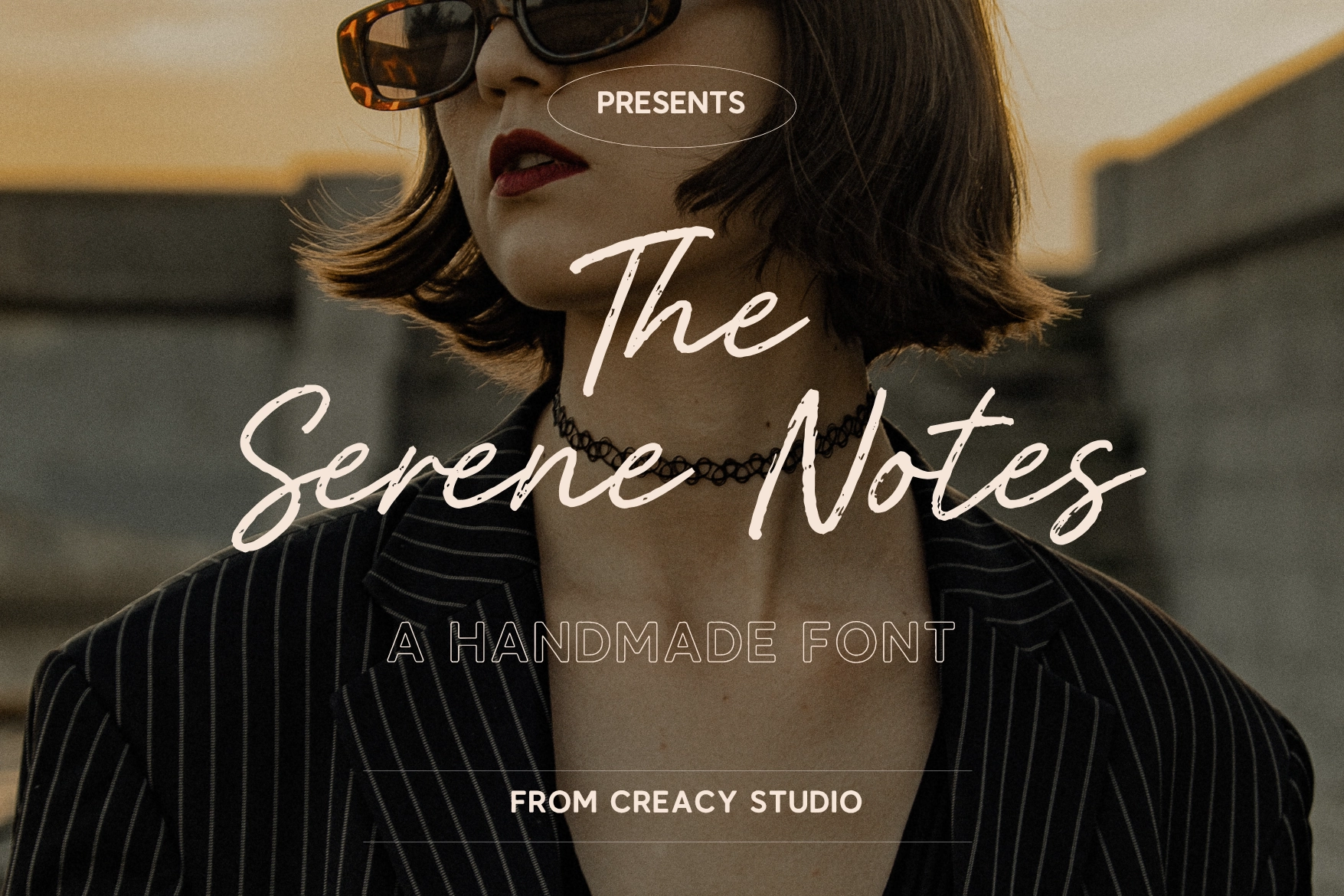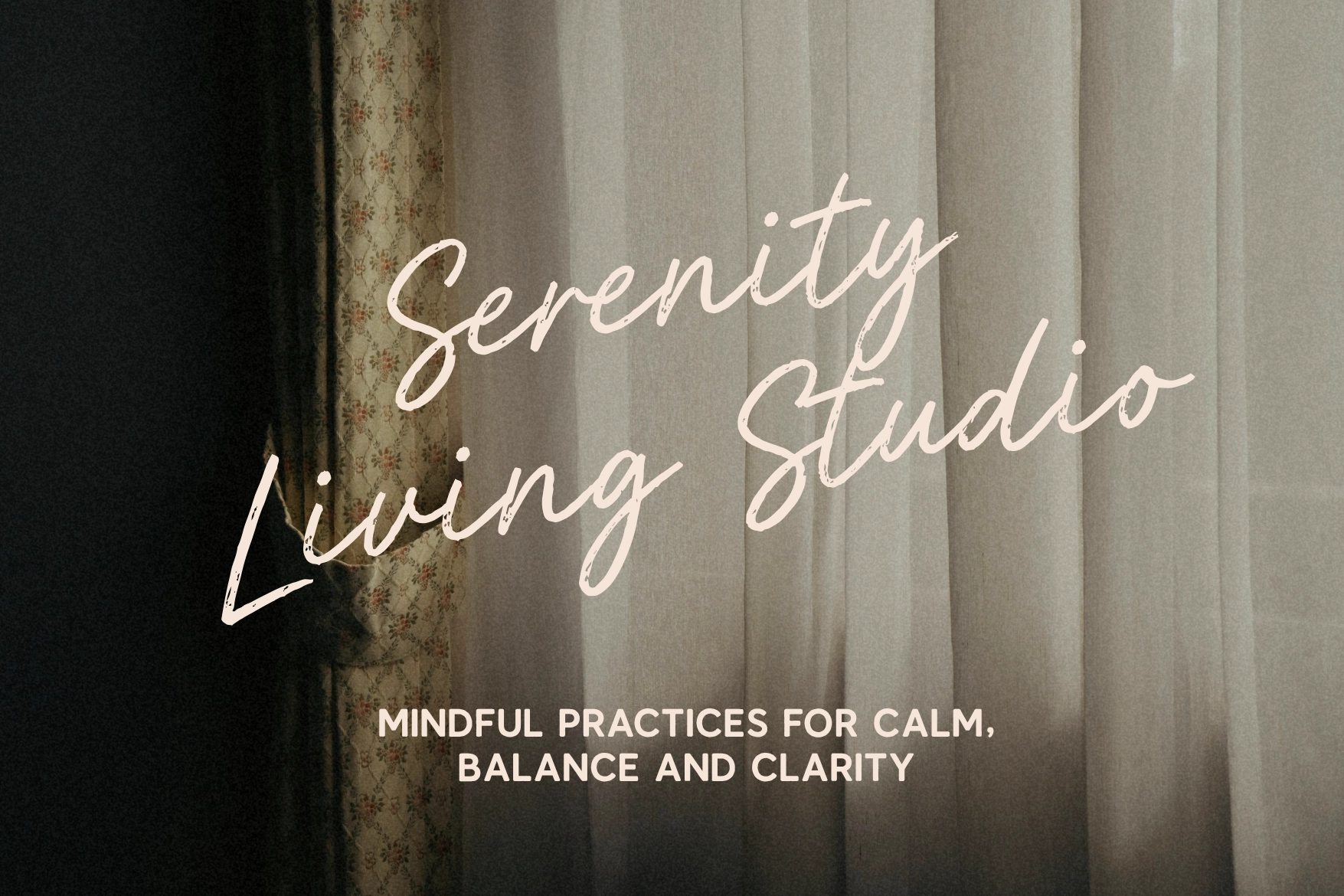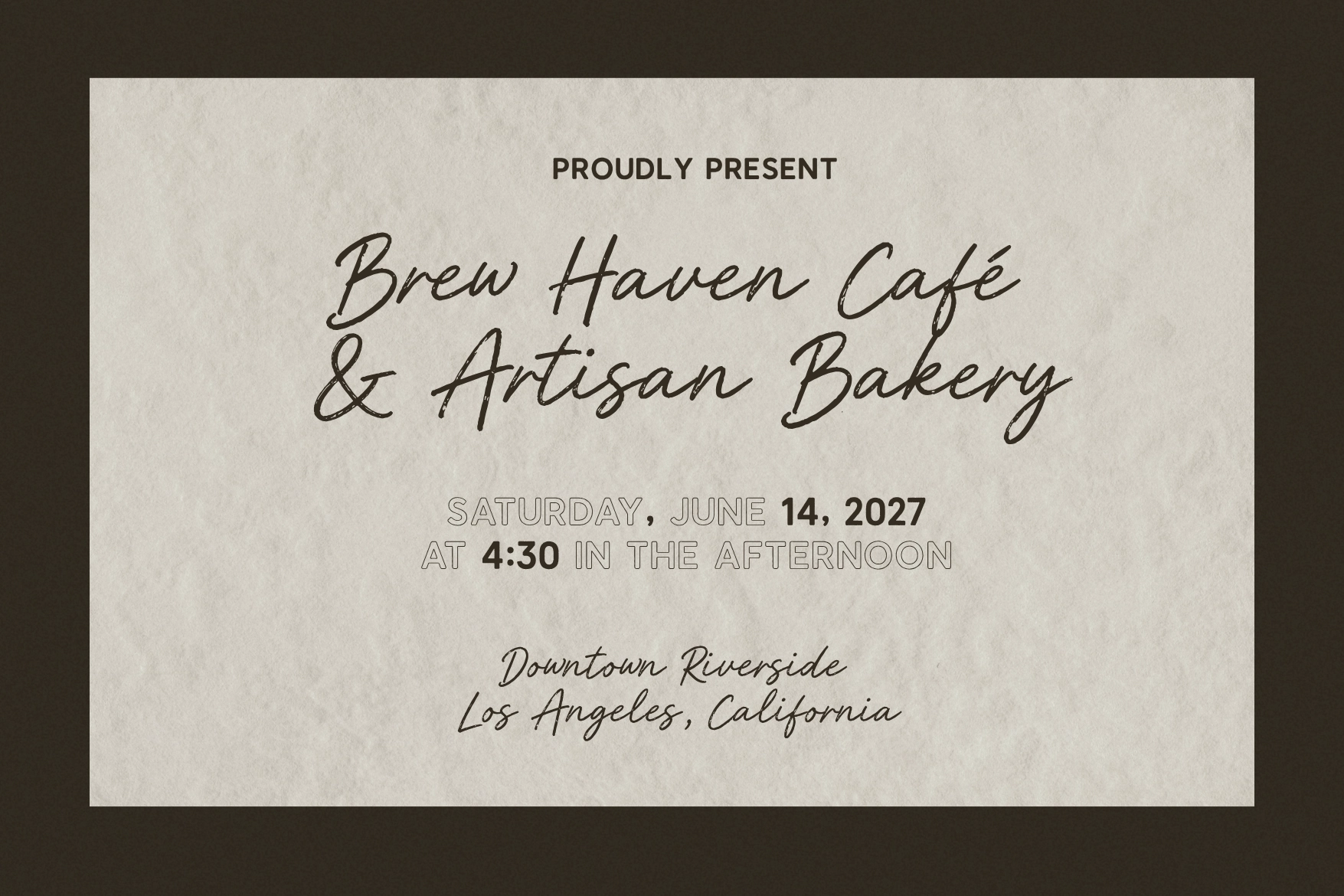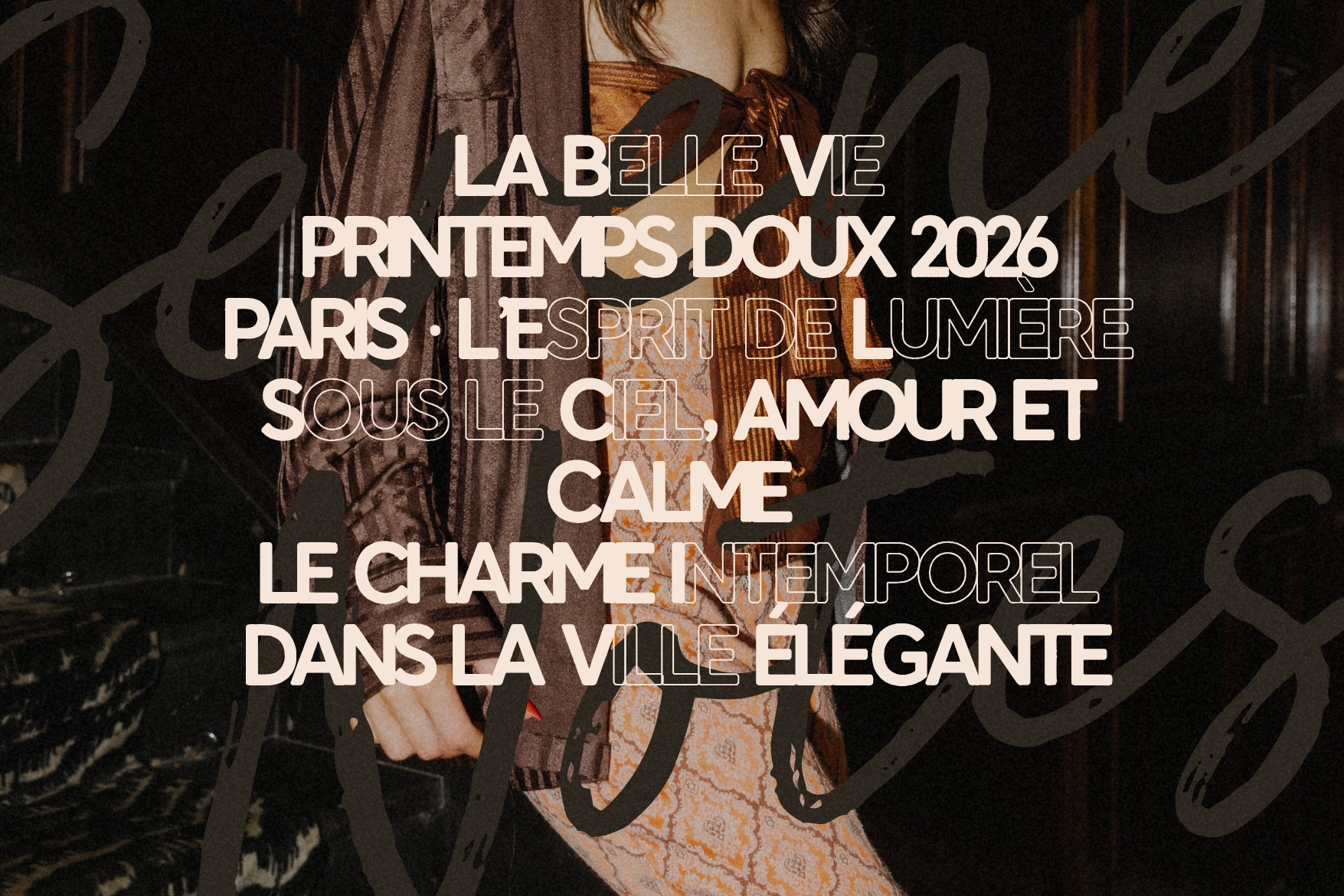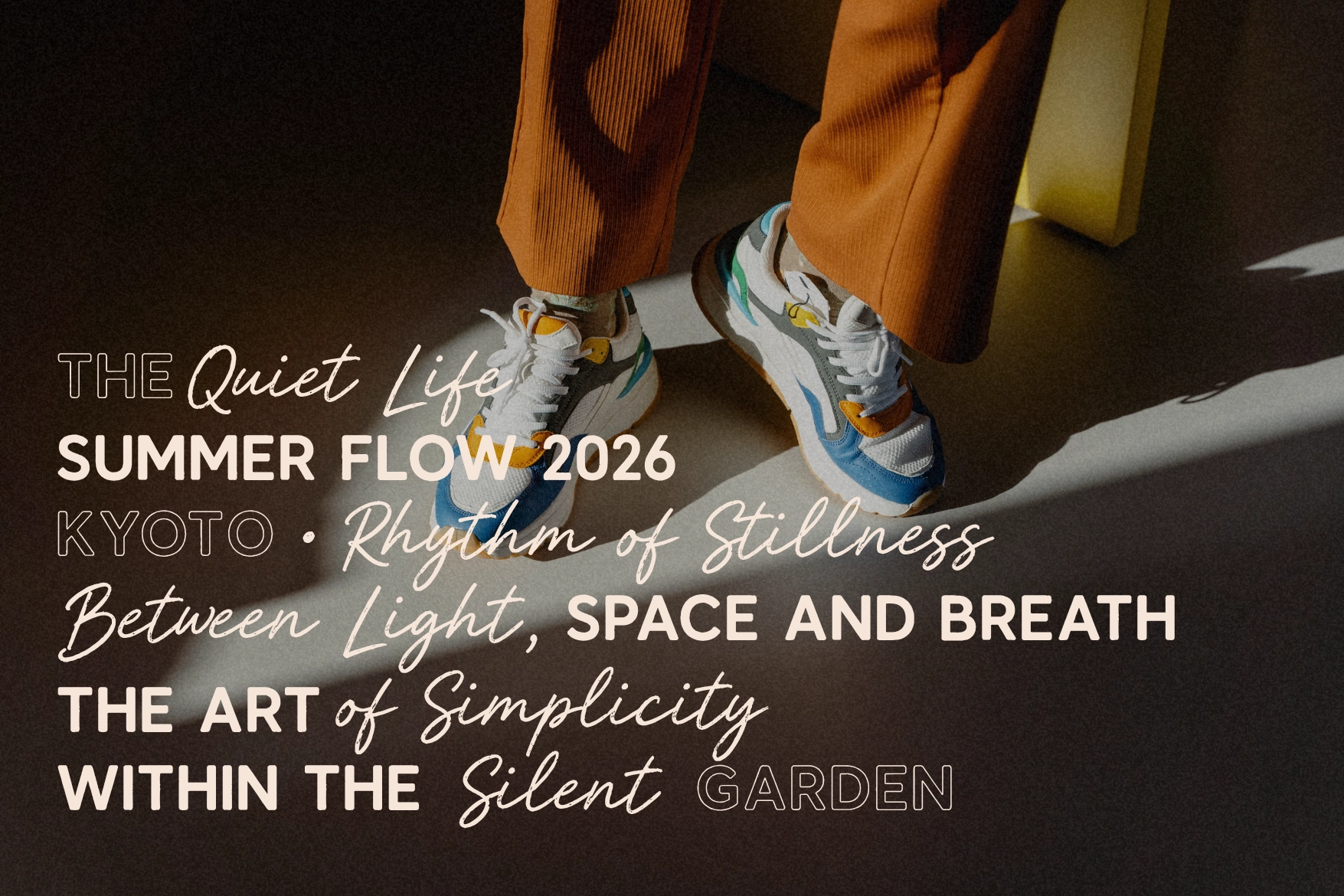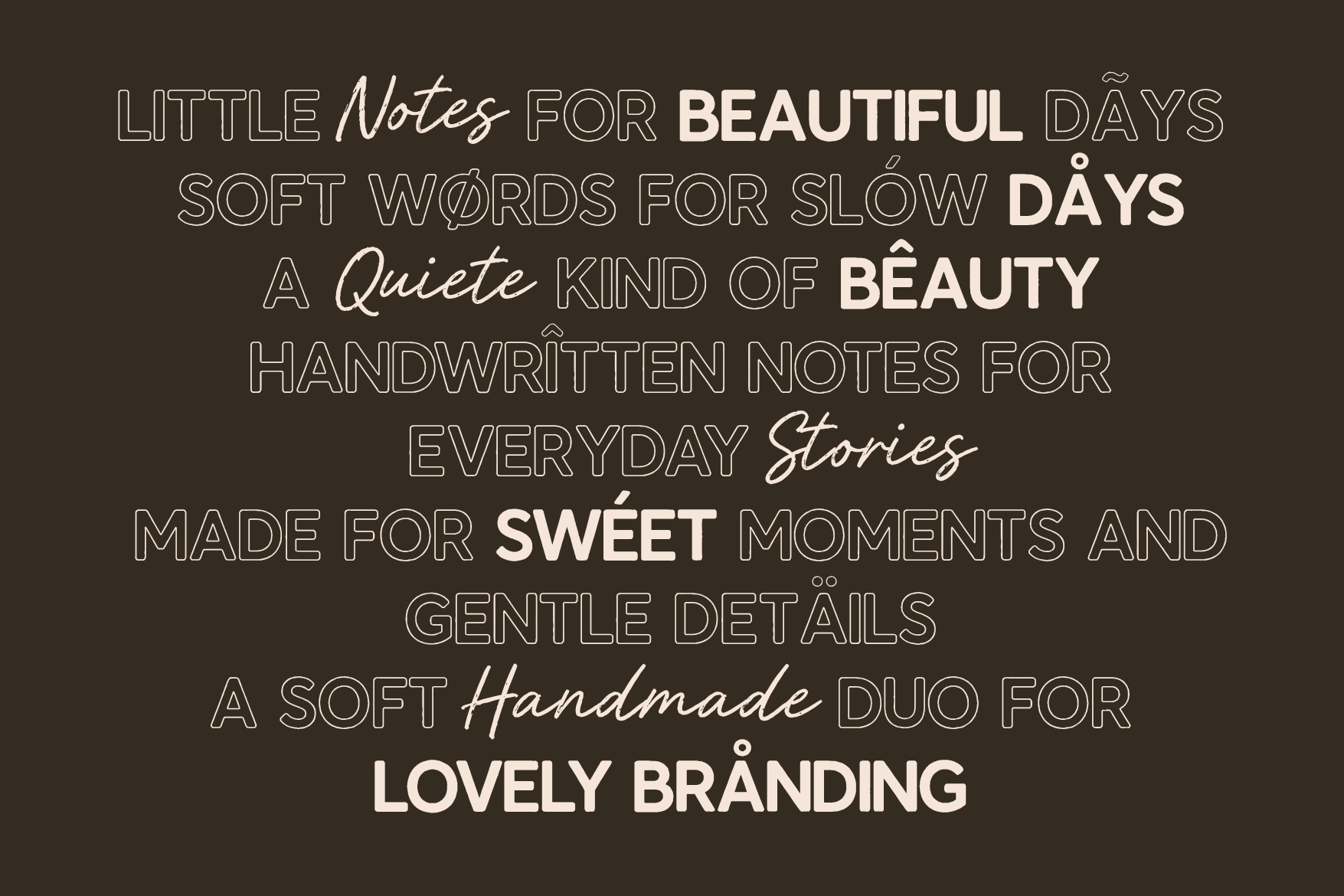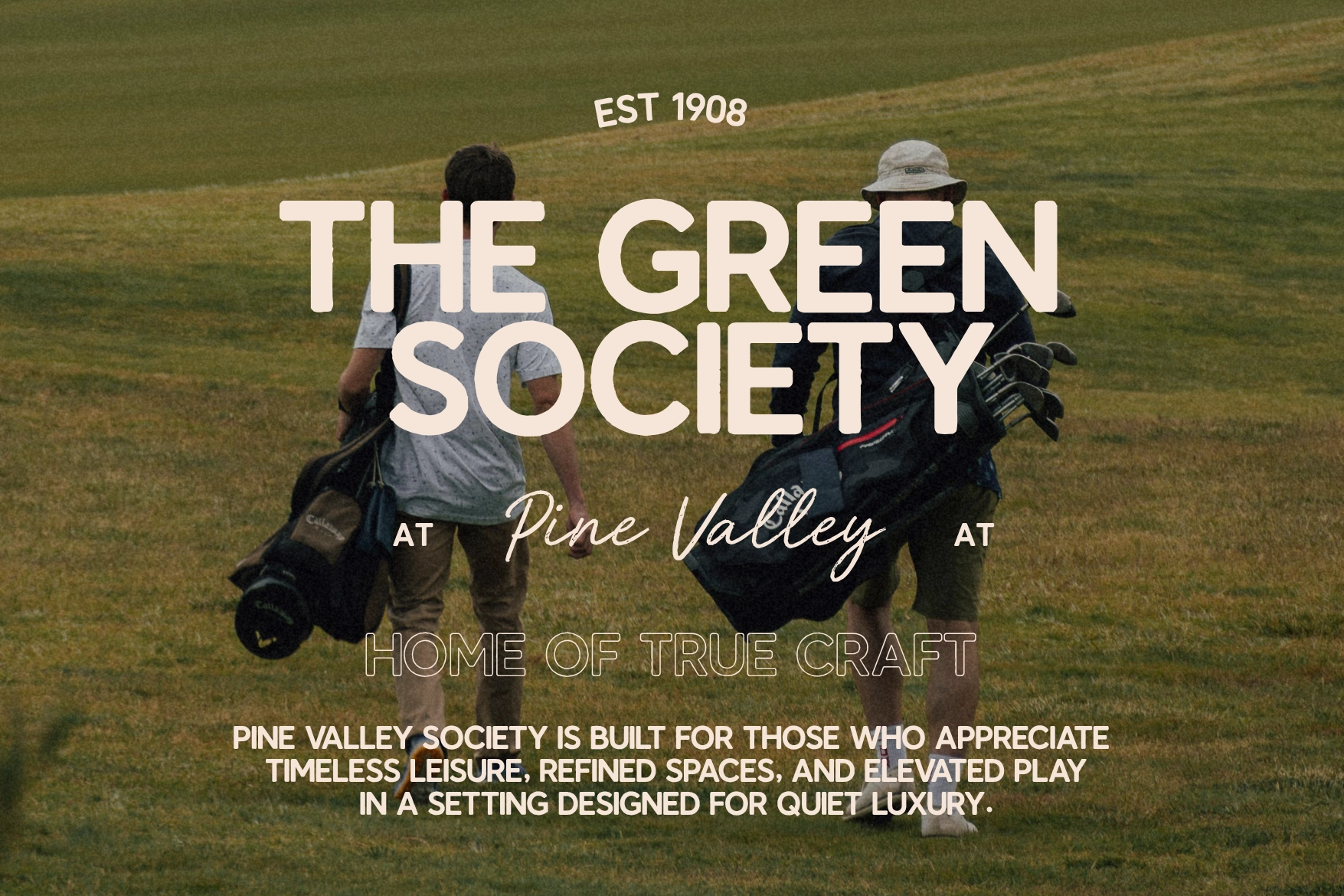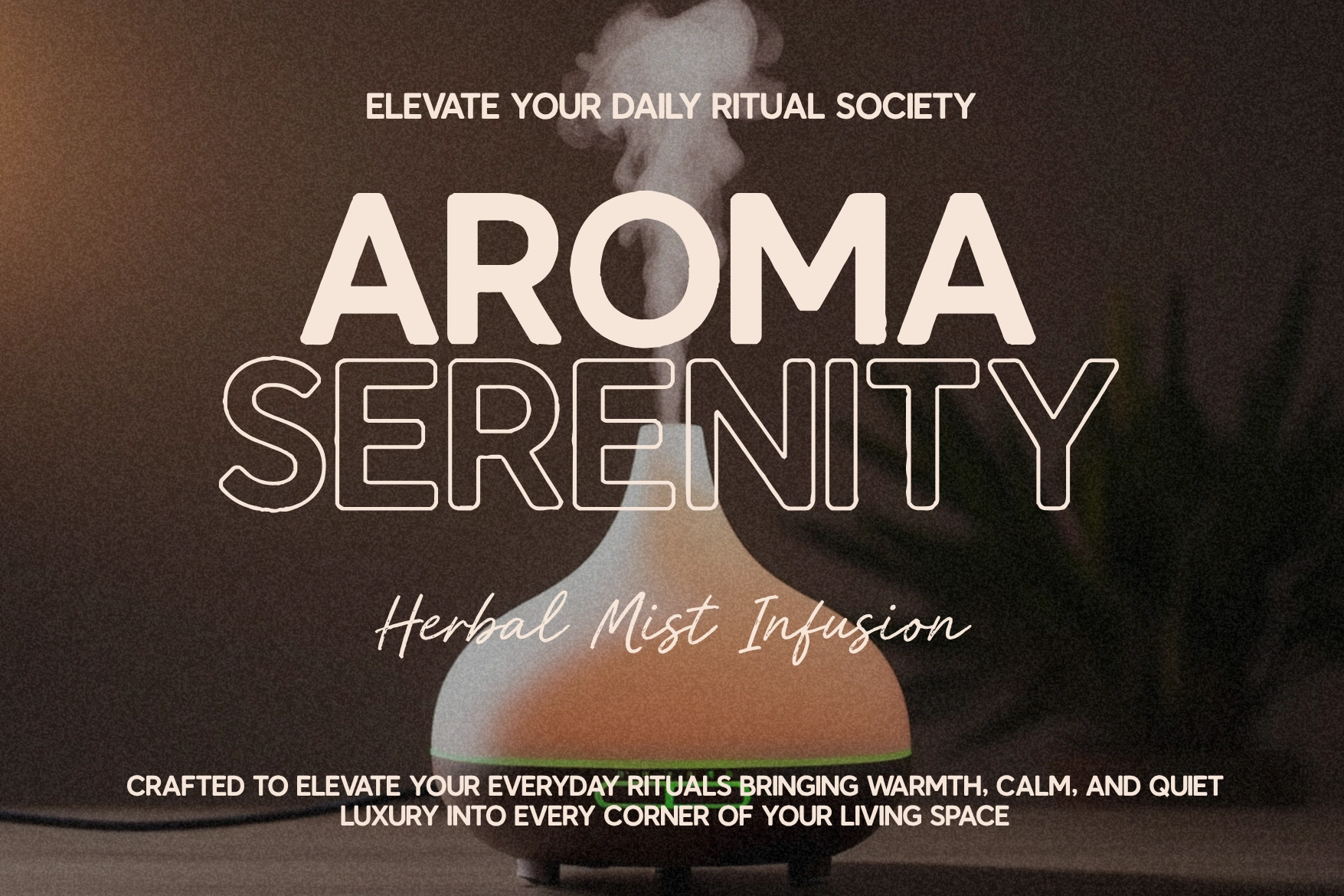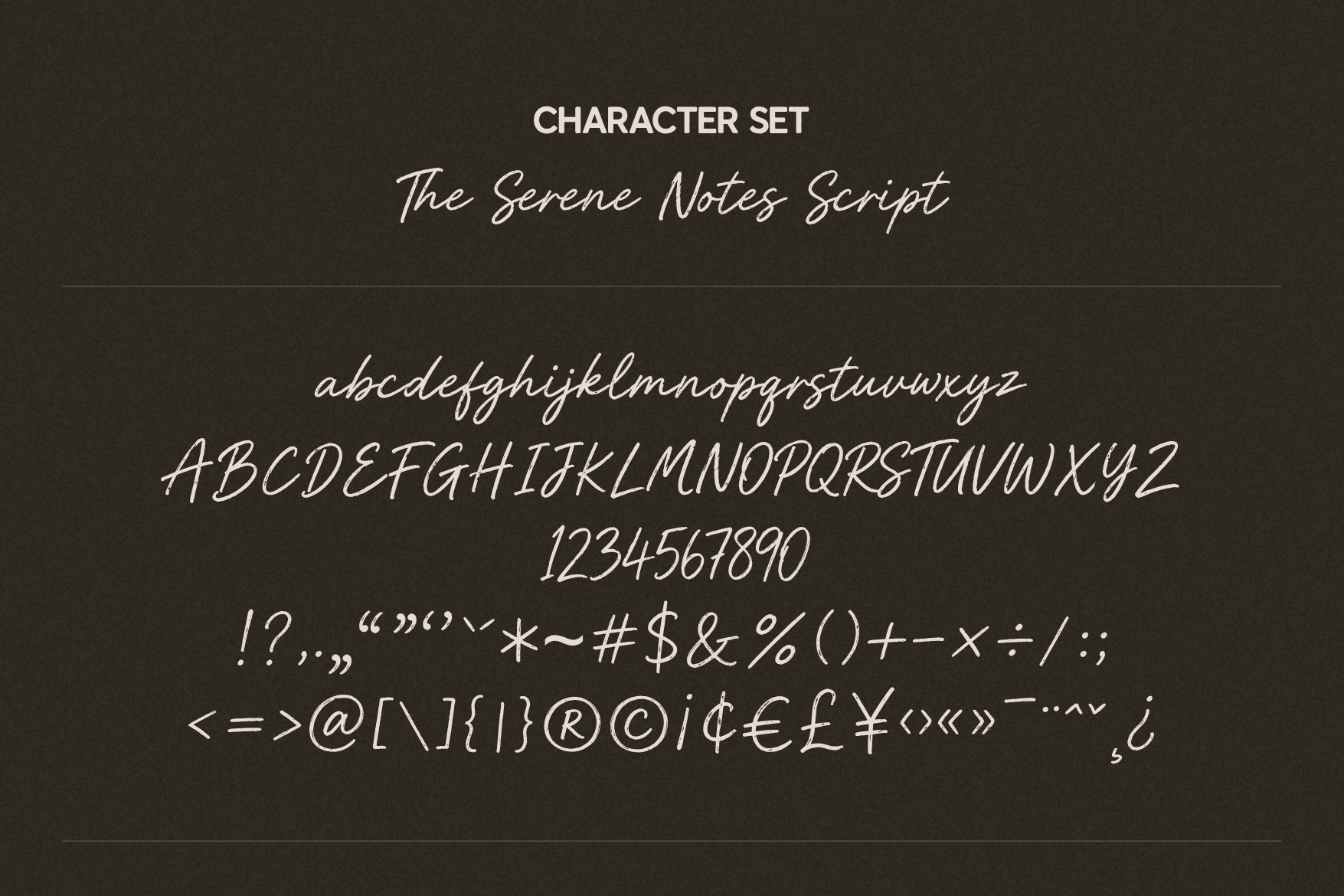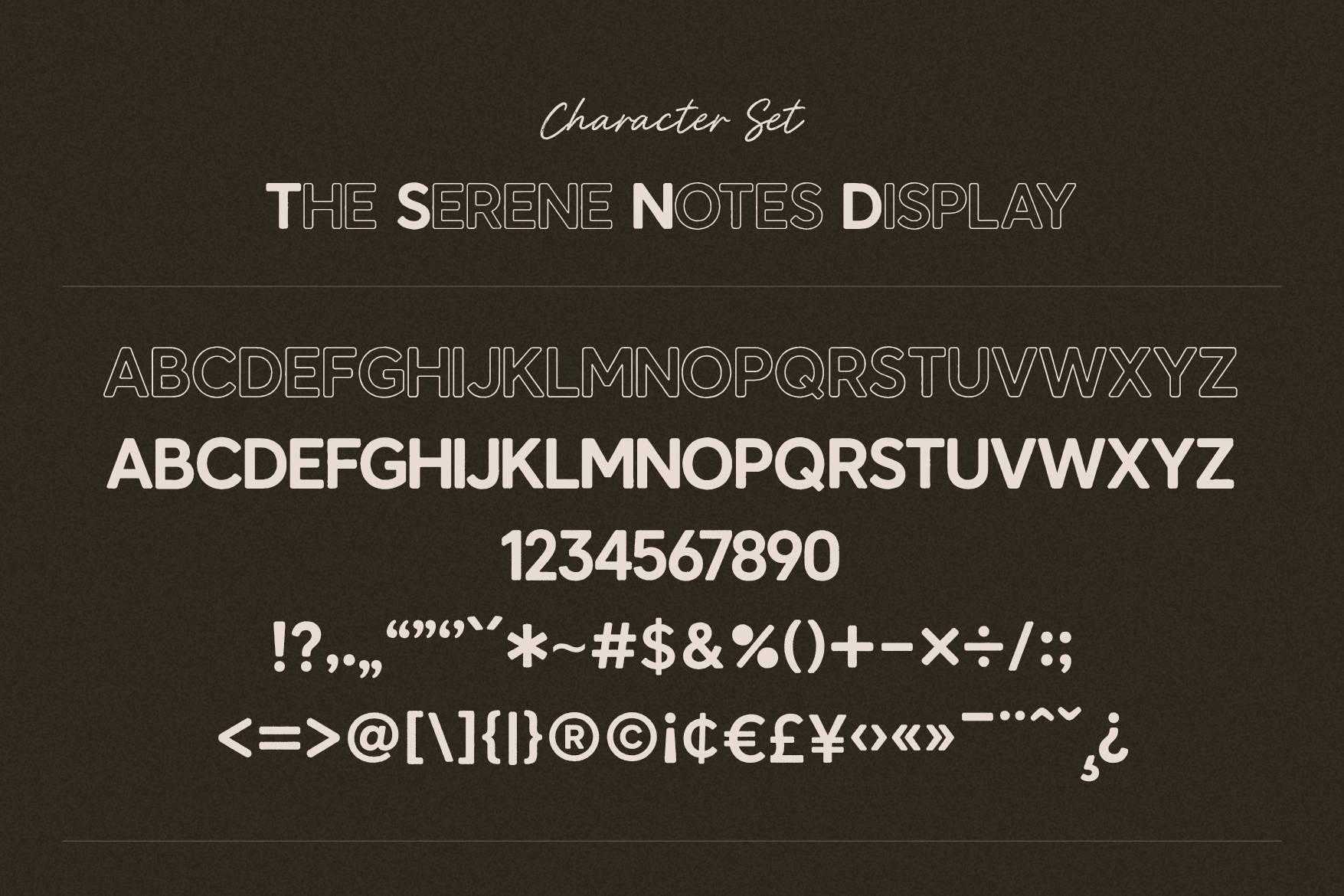
Serene Notes – Handmade Font Duo
This handwritten font duo pairs a fluid script with a clean display companion in solid and outline styles. The script has quick, graceful strokes with a natural pen texture, while the display style adds structure for layouts that need calm contrast.
Serene Notes works well for boutique branding, café logos, bakery invitations, lifestyle packaging, fashion lookbooks, beauty labels, editorial headers, wedding stationery, quote prints, social media posts, moodboards, and magazine layouts. It suits soft visual systems, personal announcements, and polished brand pieces with an intimate handwritten accent.
- Handwritten Script & Display Style Fonts
- Solid & Outline Styles
- Ligatures & Alternates